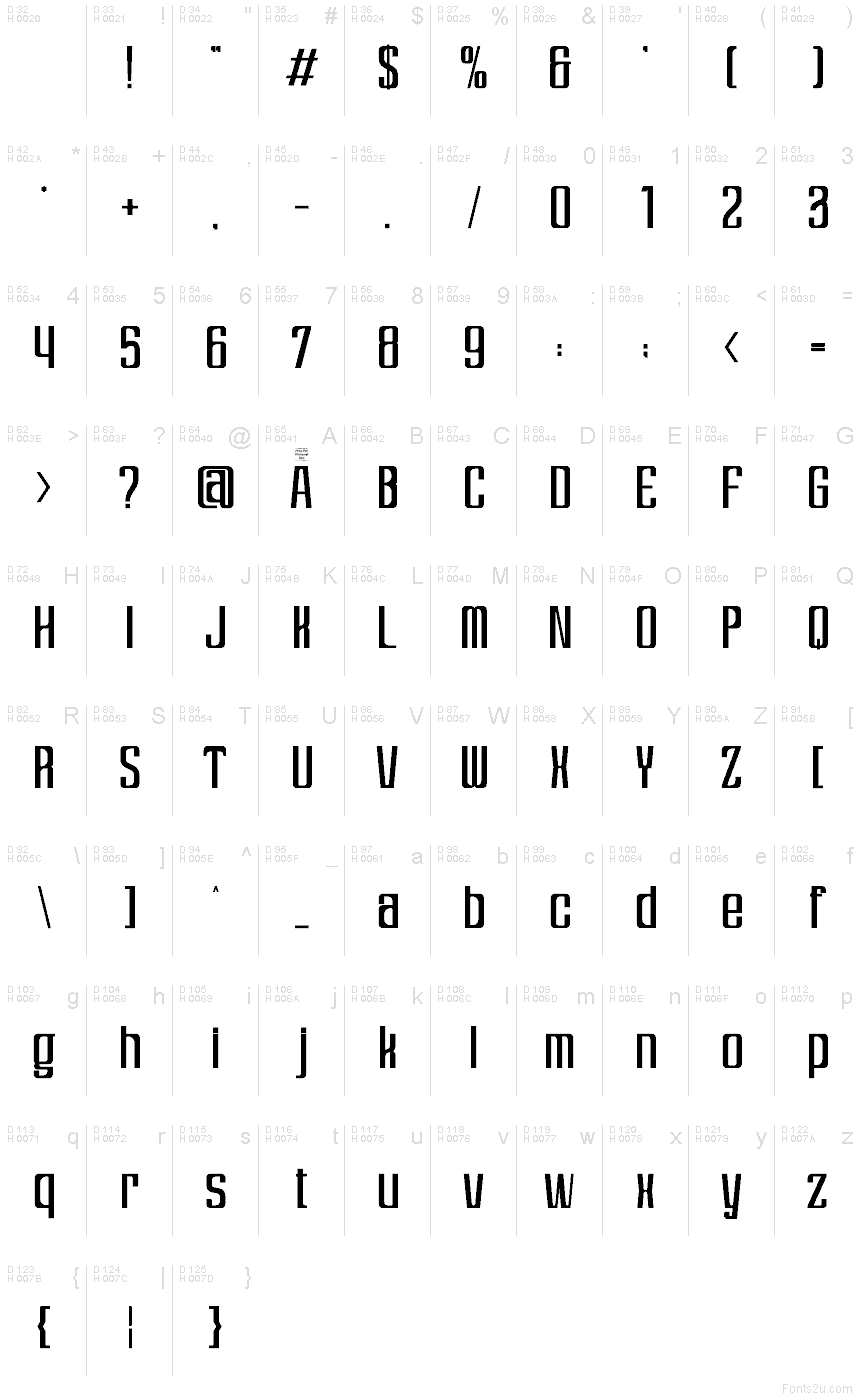
Protype
Protype font by Ermedia Studio is a free condensed retro display font. Built for tight spaces, it nails that tricky balance between strong personality and clean legibility. Tall proportions, squared curves, and clipped terminals create a crisp vertical rhythm that reads fast while still feeling distinctly vintage—somewhere between arcade cabinets and industrial signage. The strokes feel dense and deliberate, giving headlines a solid, blocky presence without shouting.
Using Protype, you’ll get standout results on posters, narrow banners, album covers, product labels, esports branding, and tech event flyers. This free font shines on short headlines and callouts where space is scarce but impact matters. For a smart pairing, set body copy in a neutral grotesk and let Protype handle the headlines; add a touch of letterspacing for extra swagger at large sizes.